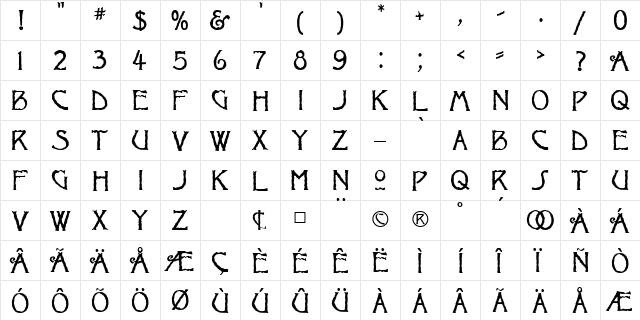
Ragged MF Regular
Design Context for Ragged MF Typeface
Ragged MF is a composed and adaptable typeface that performs quietly and consistently across a wide range of design contexts.